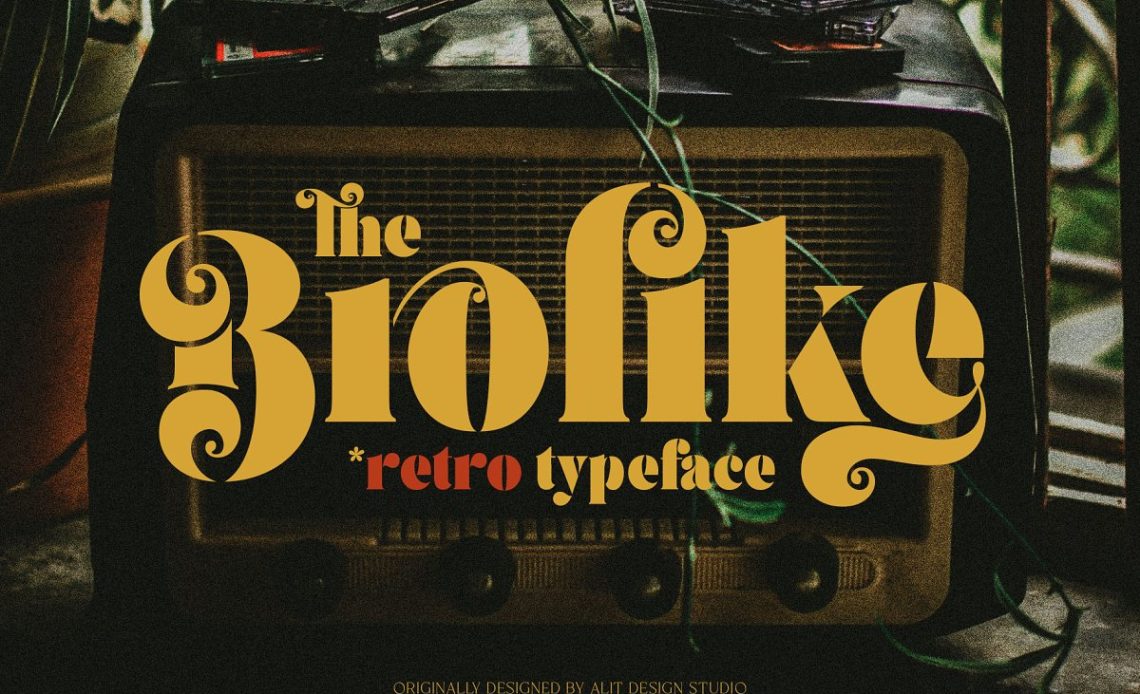
Introducing the captivating and versatile ✨Brolike Typeface✨ by alitdesign. Crafted with inspiration from the iconic cassette music album covers of the 70s and 80s, this retro font exudes a calm and simple yet intriguing and unique vibe. But what sets the Brolike font apart is its dynamic stencil style, adding a touch of stylishness to your designs.
Imagine creating lettering or a logotype that stands out from the crowd with the use of swash on alternative fonts. The Brolike font is your go-to choice for designs with a retro concept, as well as simple and playful designs. Whether you're working on magazine cover designs, music covers, YouTube thumbnails, text headers, or logotypes, this font will infuse a cool and distinctive touch to your creations.
Not only is the Brolike font aesthetically pleasing, but it is also incredibly user-friendly. It seamlessly integrates with both design and non-design programs, thanks to its comprehensive support for Unicode (PUA) and easy-to-navigate changes and glyphs. With a whopping 746 glyphs, including symbols, multilingual characters, and alternative glyphs, you'll have endless creative possibilities at your fingertips.